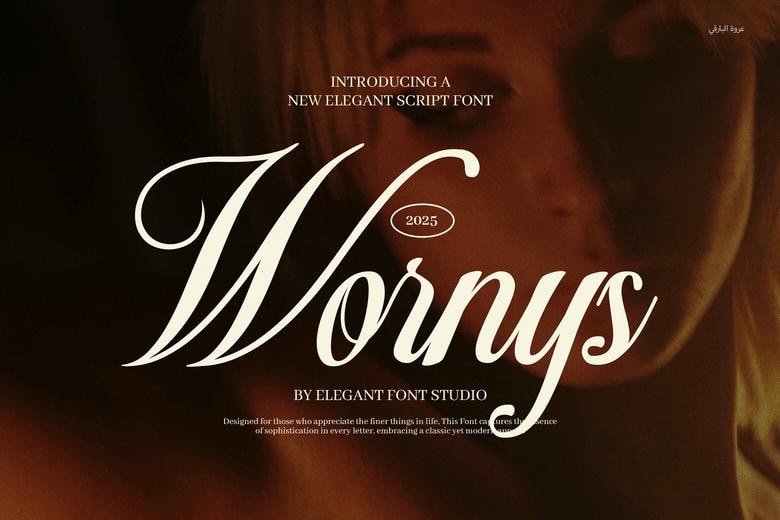
Wornys Font
Learn about classic beauty Wornys Wedding Script Font script type it is a typeface that can make any project shine, its features promise to make a difference. This font has flowing and smooth lines, exquisite ligatures, and calligraphic alternates, which make your work look elegant. You may be designing wedding invitations, branding and luxury packaging, with Wornys your design will be tasteful and elegant.
The font is absolutely ideal to a number of professional applications and it adds some class to the logos, business cards, magazine covers and advertisements. Due to its adaptability, it can be used not only in weddings but also in fashion branding, music albums, posters and even websites. The well thought out characters are still quite readable, and still leave artistic flair in your text.
Wornys Script Font